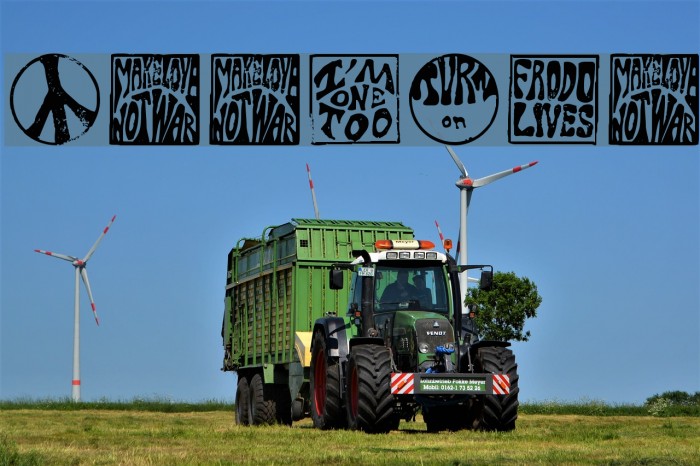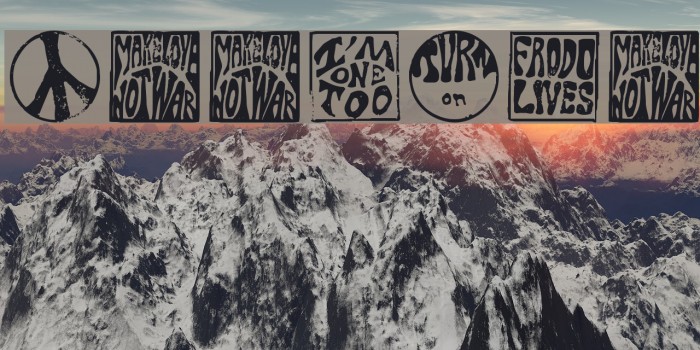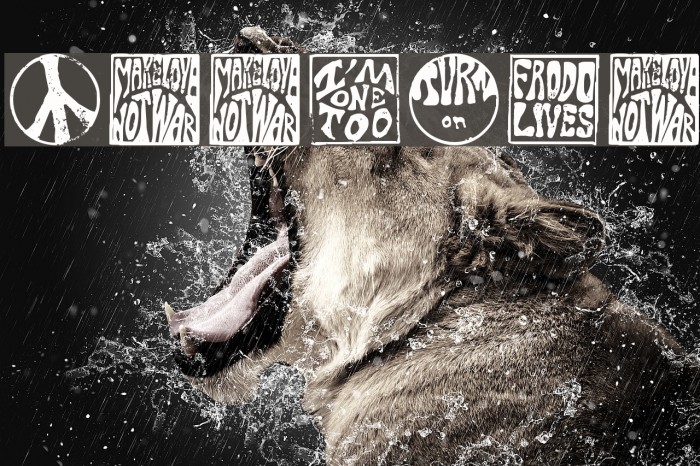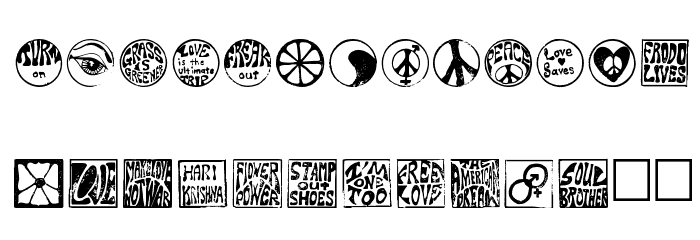
HippyStampA Font
HippyStampA Description
This font captures the essence of the 1960s counterculture, featuring playful and bold characters that are reminiscent of the hippie movement. Each letter is enclosed within a circular or square shape, adding a unique stamp-like quality. The characters are highly decorative, with varying line thicknesses and whimsical designs that evoke a sense of freedom and creativity. The font includes peace symbols, floral motifs, and phrases that reflect the era's themes of love, peace, and rebellion. Its artistic and unconventional style makes it stand out as a statement piece.
| Overall Style | Vintage |
| Use Case | Logos, Posters, Album covers |
| Proposed Projects | Ideal for retro-themed posters, album covers, event flyers, and any project seeking a vintage, counterculture aesthetic. |